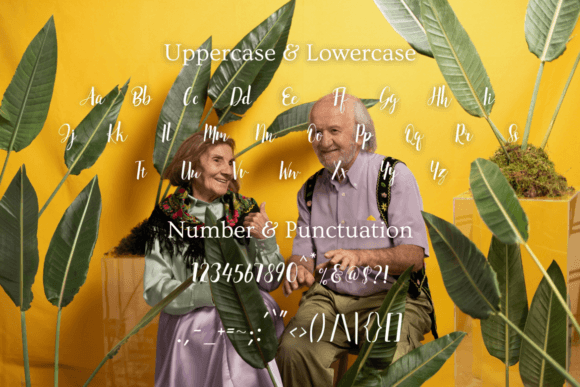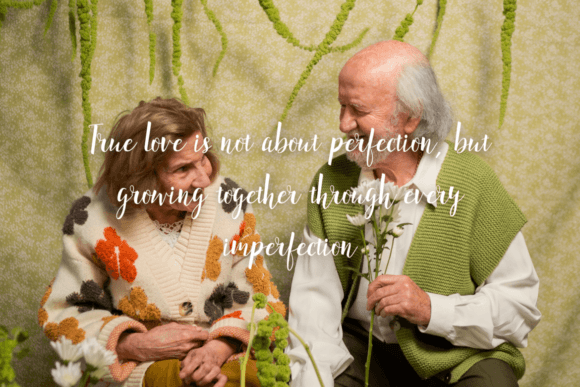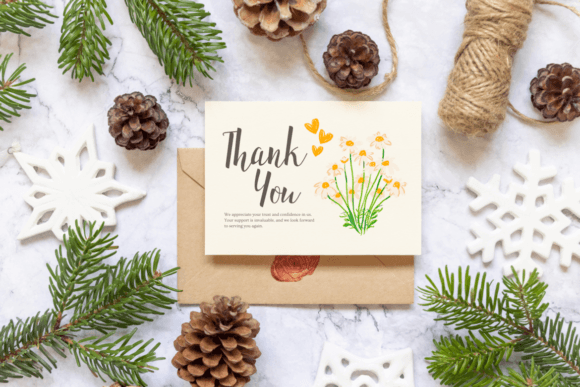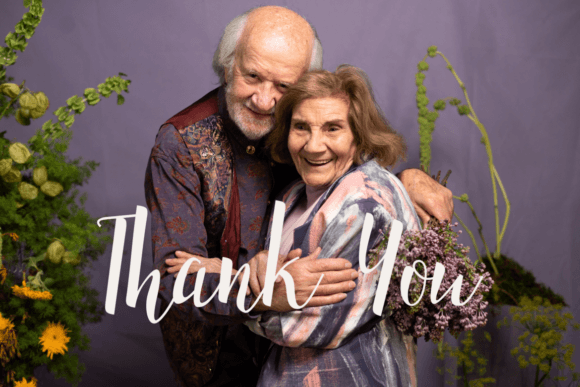
The Perfect Script: Unveiling the Beauty of Azalea Font
There’s nothing quite like the thrill of discovering a new font that sparks creativity and sets your imagination ablaze. For designers, it’s that moment of pure inspiration when everything falls into place, and the perfect piece begins to take shape. It’s a feeling that’s hard to put into words, but for those who’ve experienced it, it’s a rush like no other.
That’s exactly what Azalea Font is all about – capturing the essence of elegance and sophistication in a single, stunning script. Whether you’re crafting wedding invitations, designing business cards, or creating quotes that touch the heart, this font is the perfect accompaniment to your creative vision.
For designers, the Azalea Font is a valuable addition to any toolkit, offering a level of sophistication and refinement that’s hard to match. Its versatility and timeless charm make it a go-to choice for projects that require a touch of handwritten elegance, and we can’t wait to explore its many possibilities with you.
Azalea Font Key Features
- Unique Characteristics: This font features a unique, hand-drawn design with subtle irregularities and nuances, giving it a personal and elegant touch.
- Kerning and Ligatures: The font includes advanced kerning and ligature pairs, ensuring that text sets are visually appealing and well-spaced.
Azalea Font Review
As a designer, I was excited to dive into the world of Azalea Font. I was immediately struck by its ✨ elegant and whimsical feel. The font’s curves and flourishes are reminiscent of classic script fonts, but with a modern twist that sets it apart. The font’s high contrast between thick and thin lines adds a level of sophistication, making it perfect for a wide range of designs.
- ✨ Elegant and whimsical feel, perfect for creative and artistic projects.
- ✨ High contrast between thick and thin lines adds a level of sophistication.
- ✨ Supports a wide range of languages, making it a great option for multilingual designs.
However, I did encounter a few limitations with Azalea Font. The font’s ✨ bold weight is a bit inconsistent, and the font’s width can vary depending on the line length, which can be a challenge to work with.
- ⚠️ Inconsistent bold weight, may require additional adjustments.
- ⚠️ Font width can vary depending on line length, may require additional spacing adjustments.
Overall, I would say that Azalea Font is a solid choice for designers looking for a unique and elegant font. While it has its limitations, the font’s strengths far outweigh its weaknesses, making it a great addition to any design toolkit.
For best results, use the Azalea Font for headings and titles to add a touch of elegance and sophistication to your designs.
Use the Azalea Font for titles, headings, and other text elements to add a unique and stylish touch to your designs.
Use the Azalea Font for headings, titles, and other text elements to add a touch of sophistication and elegance to your presentations and documents.
The Azalea Font is perfect for:
- Event promotion and marketing materials
- High-end packaging and labeling
Remember to experiment with different font sizes, colors, and styles to get the most out of the Azalea Font.
Azalea Font can be paired with a variety of fonts to create visually appealing combinations. For a clean and modern look, pair Azalea Font with sans-serif fonts like Open Sans or Lato. For a more traditional or elegant look, pair Azalea Font with serif fonts like Georgia or Merriweather. The key is to balance the x-height and contrast of the paired fonts to create a harmonious visual effect.